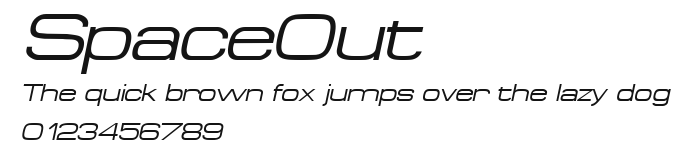
• Font Name: SpaceOut
SpaceOut.ttf is a modern, elegant sans-serif font designed for ultimate readability and visual harmony. Perfect for branding, headlines, web design, and print materials.